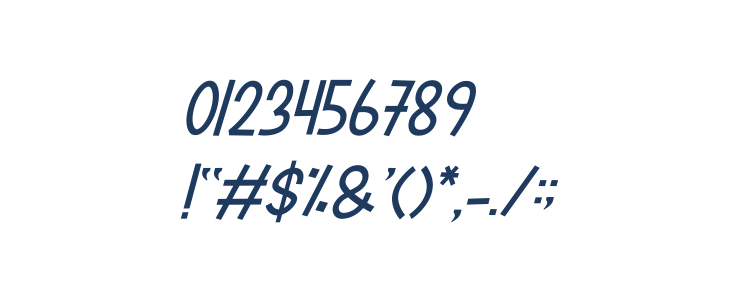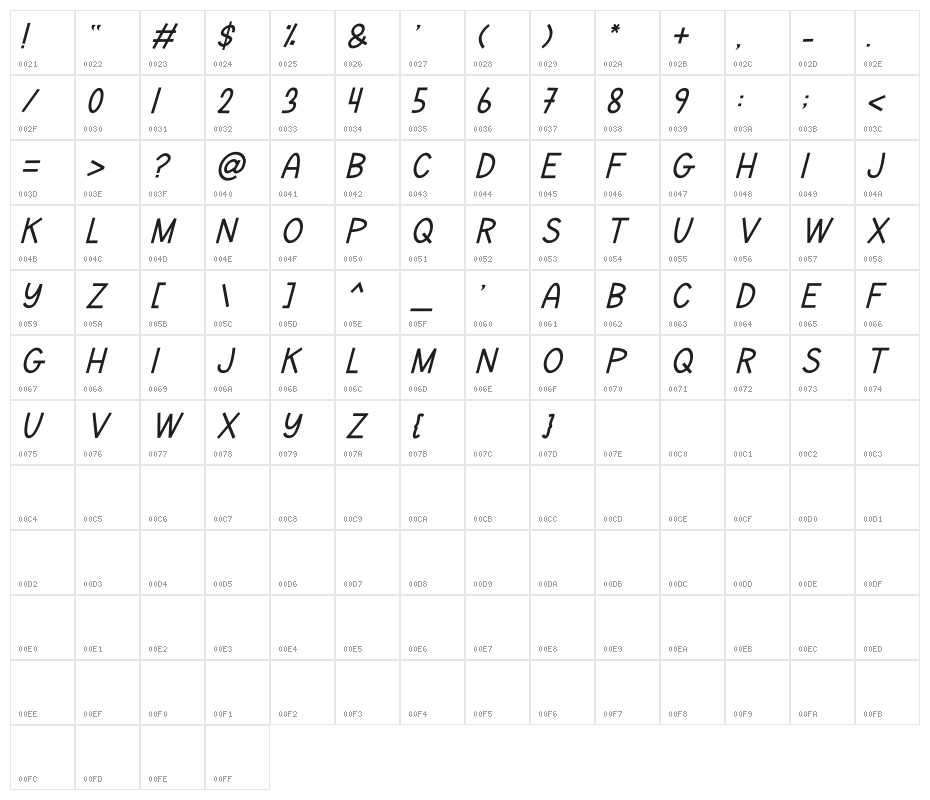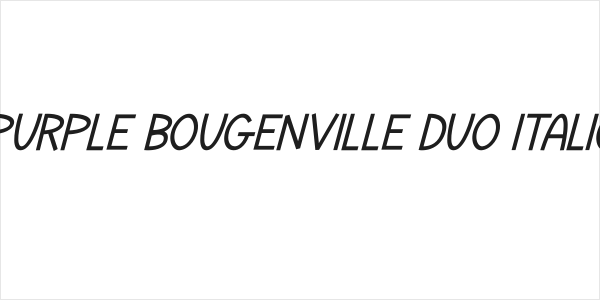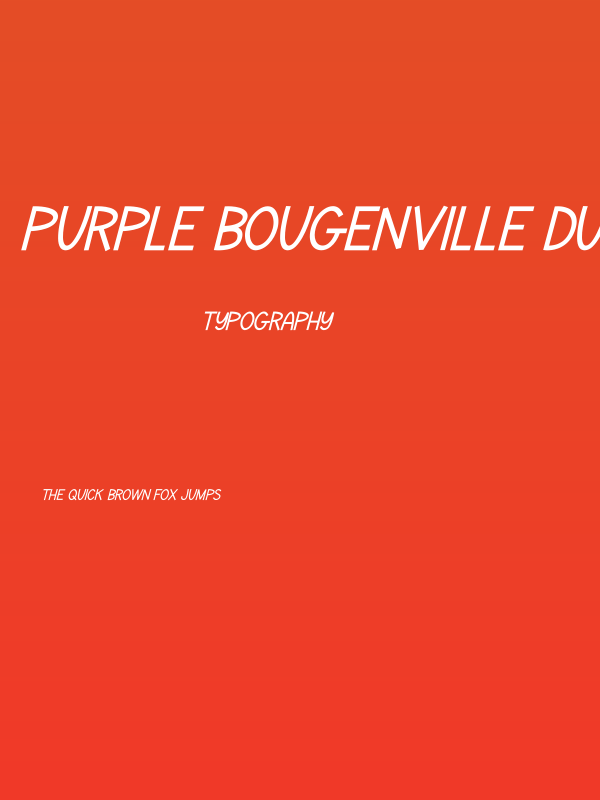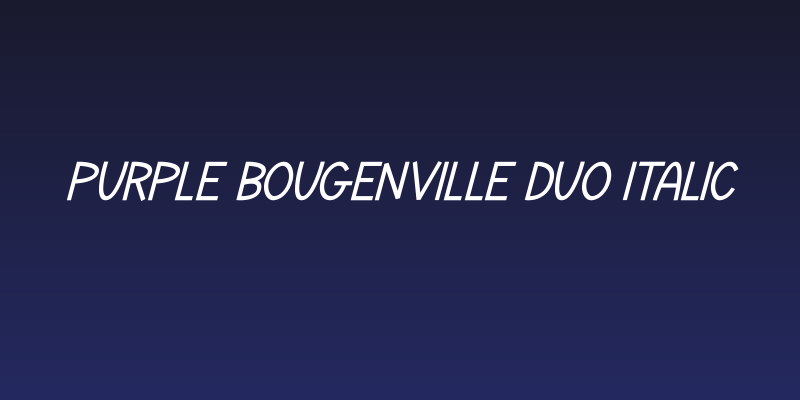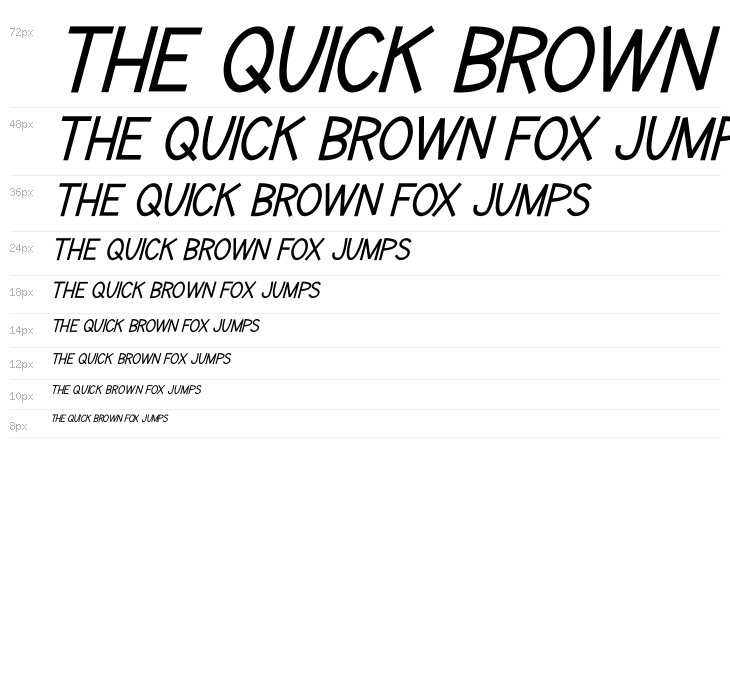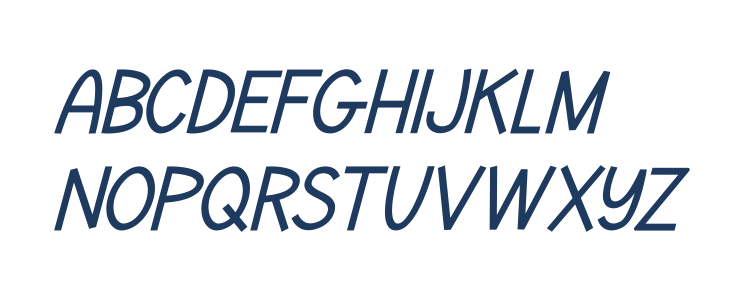
Purple Bougenville Duo Italic Font
Purple Bougenville Duo Italic Description
This font features a dynamic and energetic italic style, characterized by its forward-leaning slant and smooth, flowing lines. The uppercase and lowercase letters maintain a consistent rhythm, with slightly elongated forms that enhance readability while adding a touch of elegance. The numerals are well-proportioned, matching the overall aesthetic of the alphabet. Special characters are thoughtfully designed to complement the letterforms, ensuring a cohesive look across all text elements. This typeface exudes a modern and stylish vibe, making it suitable for a variety of creative applications.